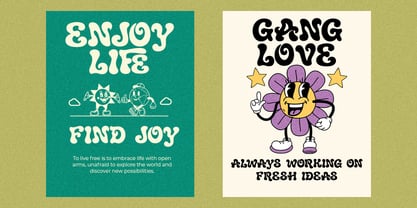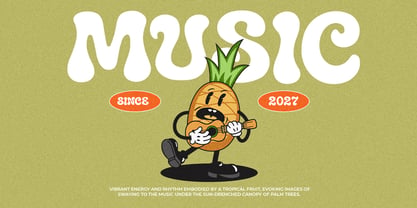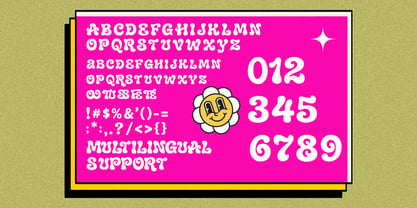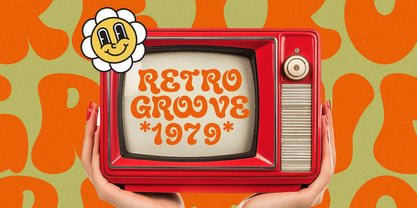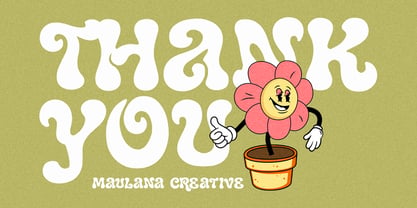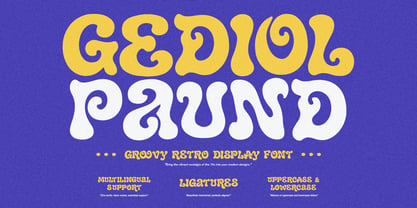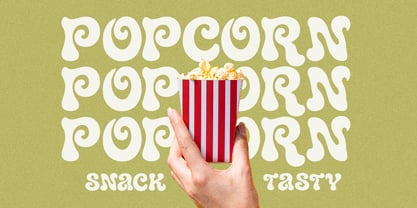
MC Gediol Paund
Die Schriftfamilie MC Gediol Paund wurde von Gilang Maulana entworfen und von Maulana Creative veröffentlicht. MC Gediol Paund enthält 1 Stile. Mehr über diese Familie
Gediol Paund is a vibrant display font that perfectly captures the nostalgic essence of the 1970s. Characterized by its bold, flowing curves and playful wavy structures, this typeface radiates a cheerful, psychedelic energy. It features unique ligatures, distinctive uppercase and lowercase characters, and full multilingual support, making it an exceptional choice for eye-catching headlines, vintage posters, creative branding, and bold graphic designs that require a touch of classic retro charm.